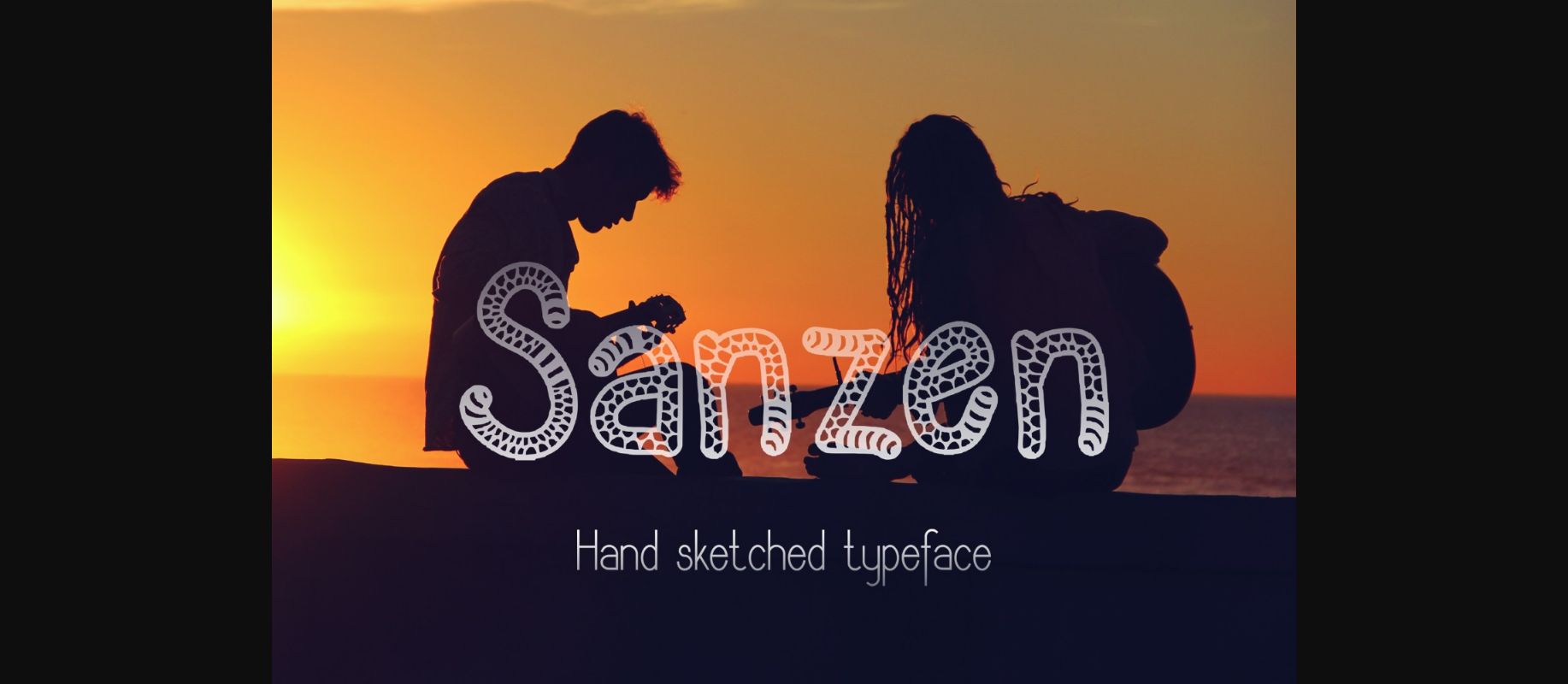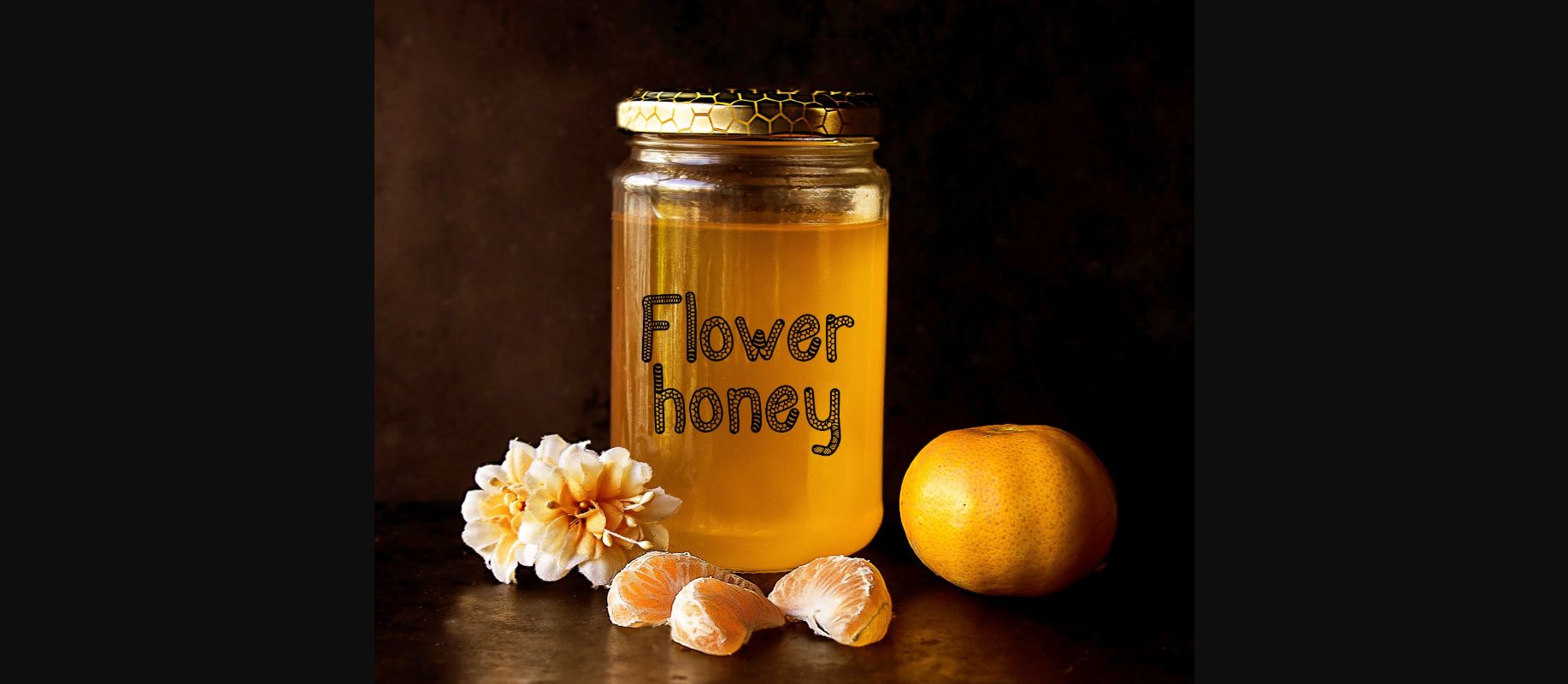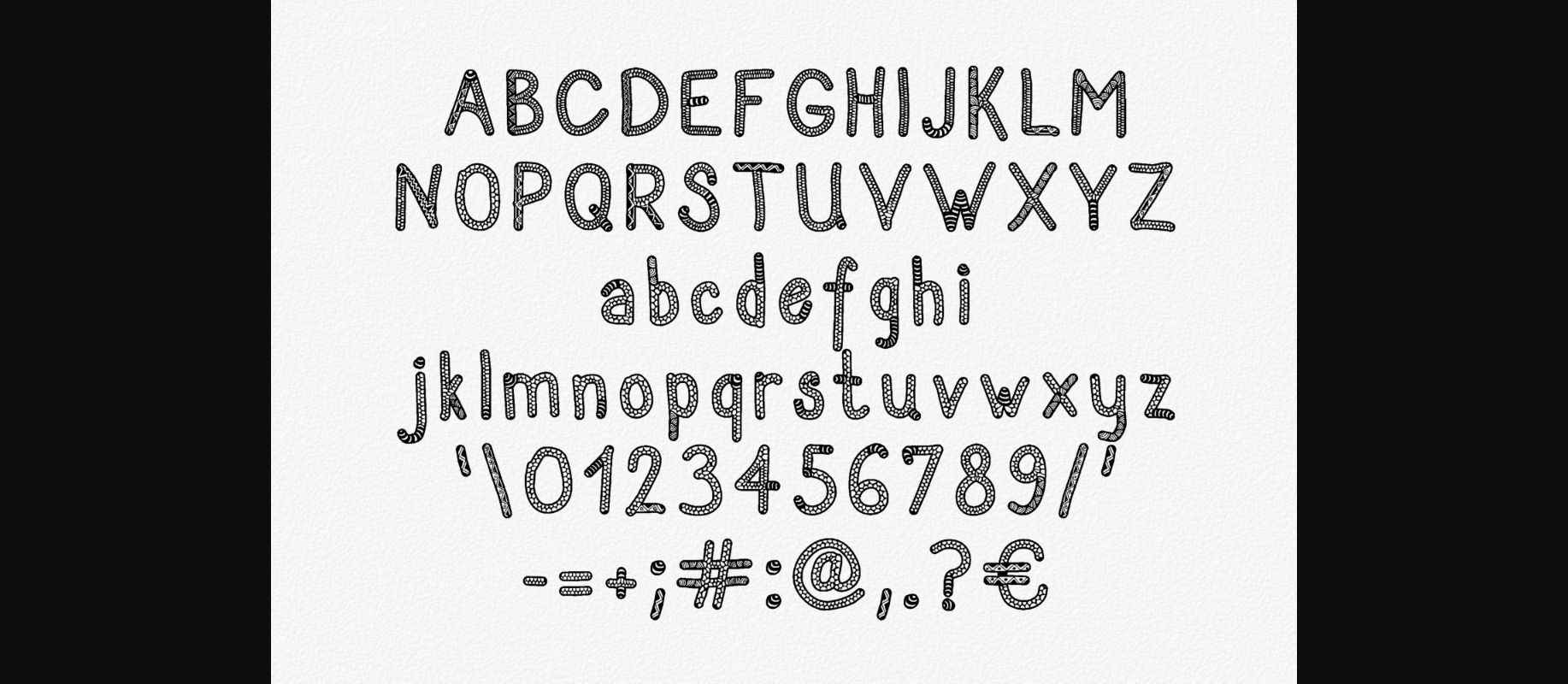
About Sanzen Font
Sanzen is perfect for branding projects, homeware designs, product packaging, stationery – or simply as a text overlay to any background image.